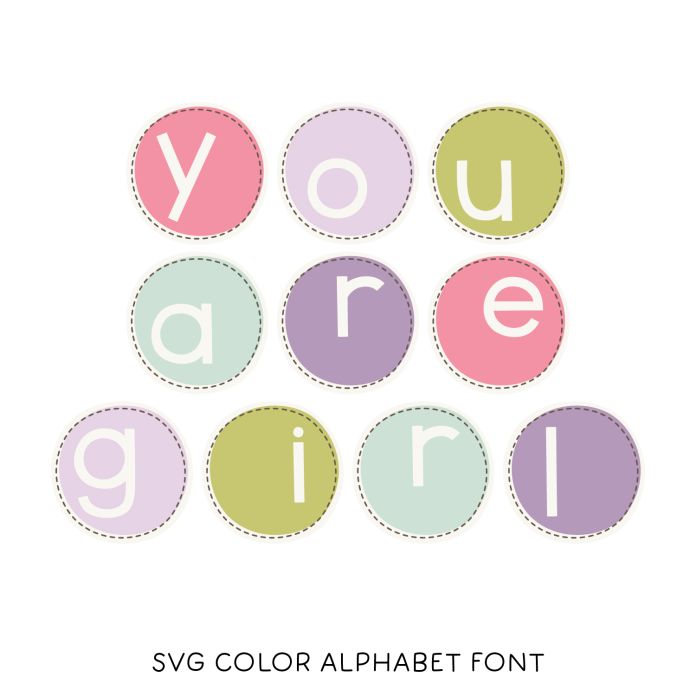
Create titles, sayings and more with the You Are Girl SVG color and black font! This font also features every letter in 5 colors – access the alternate colored characters by using the Glyphs panel in Photoshop or Illustrator (Type menu -> Panels -> Glyphs in PS and Type menu -> Glyphs in AI). Includes A to Z characters only.